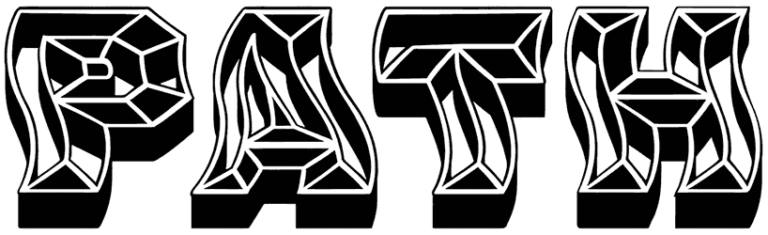
El Hijo del Butanero Font
El Hijo del Butanero, a shadow font, does an excellent job of standing out, despite the fact that this outlined font is missing lowercase letters.
This 3D font could be useful for use in a variety of branding, garment, and poster applications due to its sophisticated and captivating appearance. Find out how many alternatives there are in our digital font collection that are similar to this one.
El Hijo del Butanero.